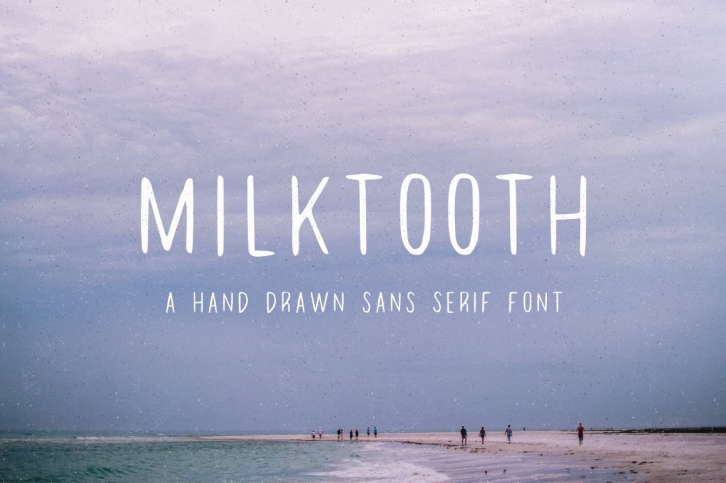
Milktooth is a hand drawn sans-serif font. Inspired by the laid back surf culture of the West Coast, It is perfect for giving any project, or photo a handcrafted feel. Comes with numbers and minimal glyphs. File comes as both .ttf and .otf files.